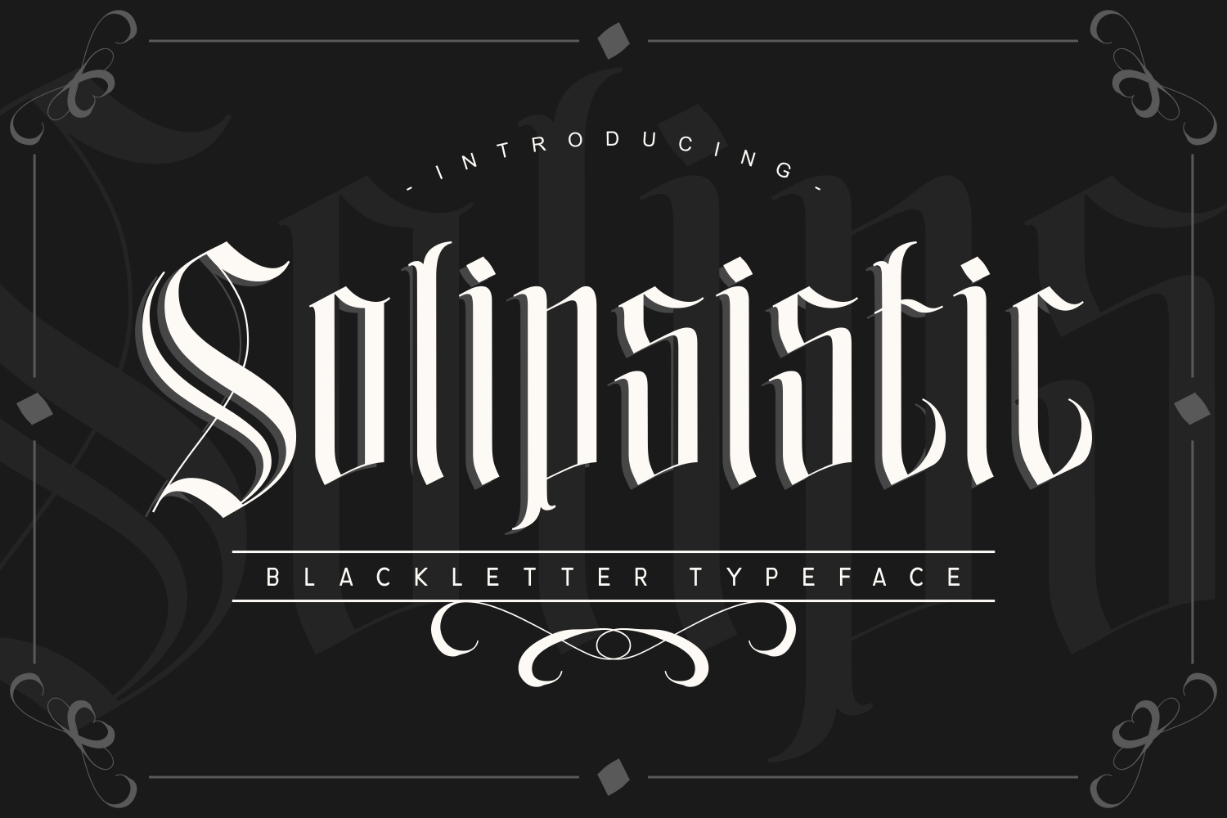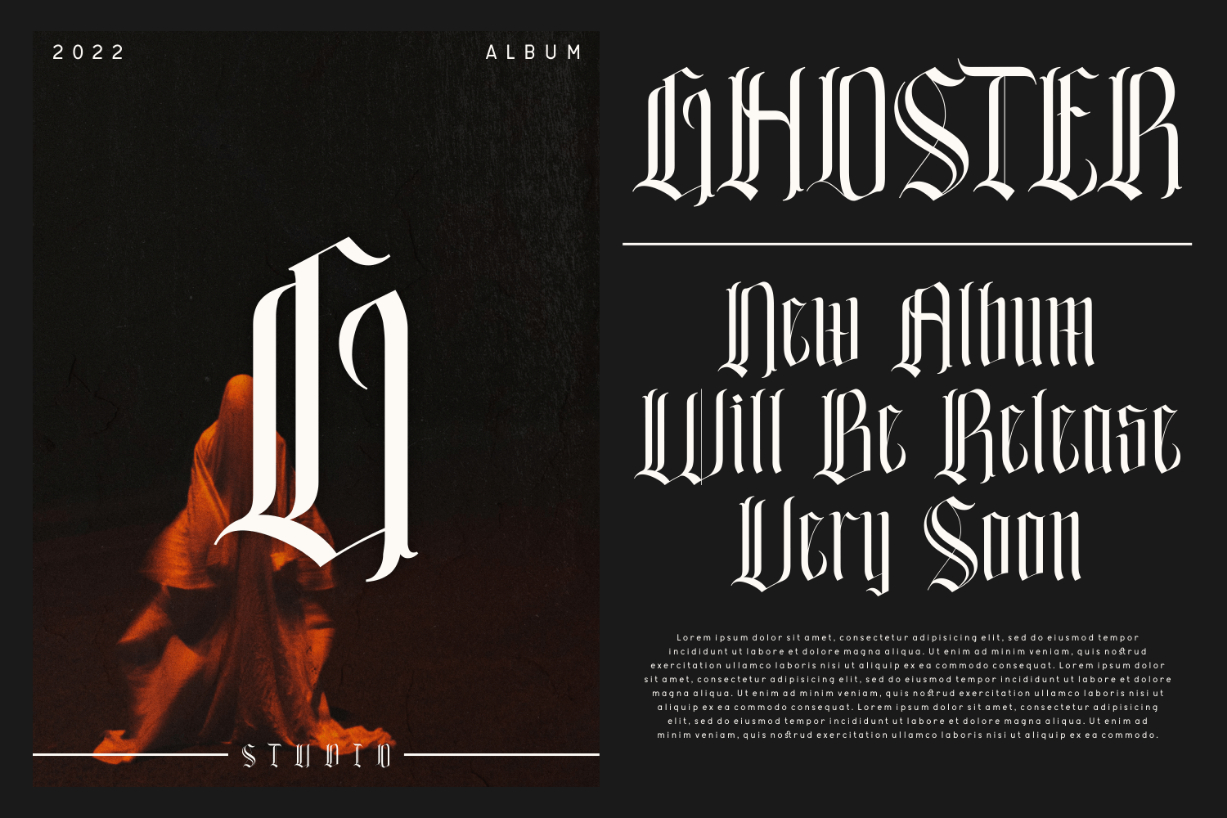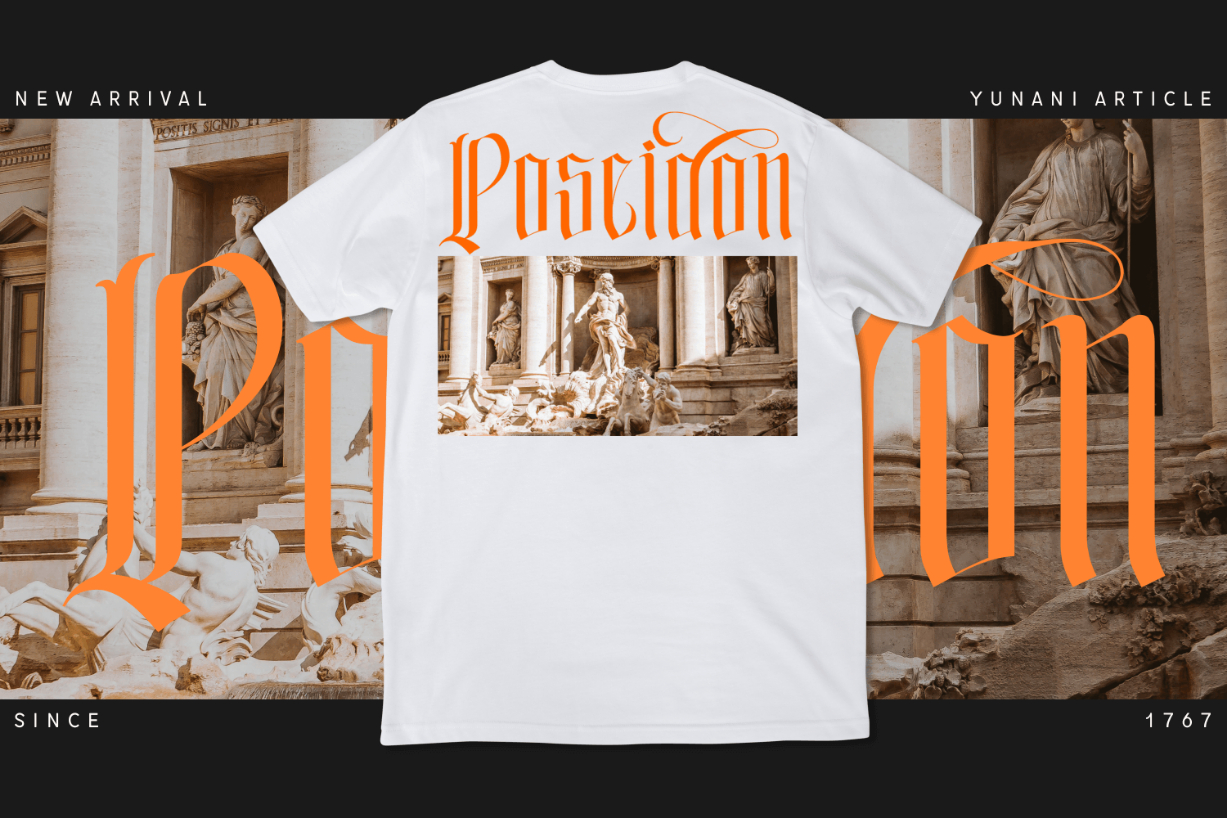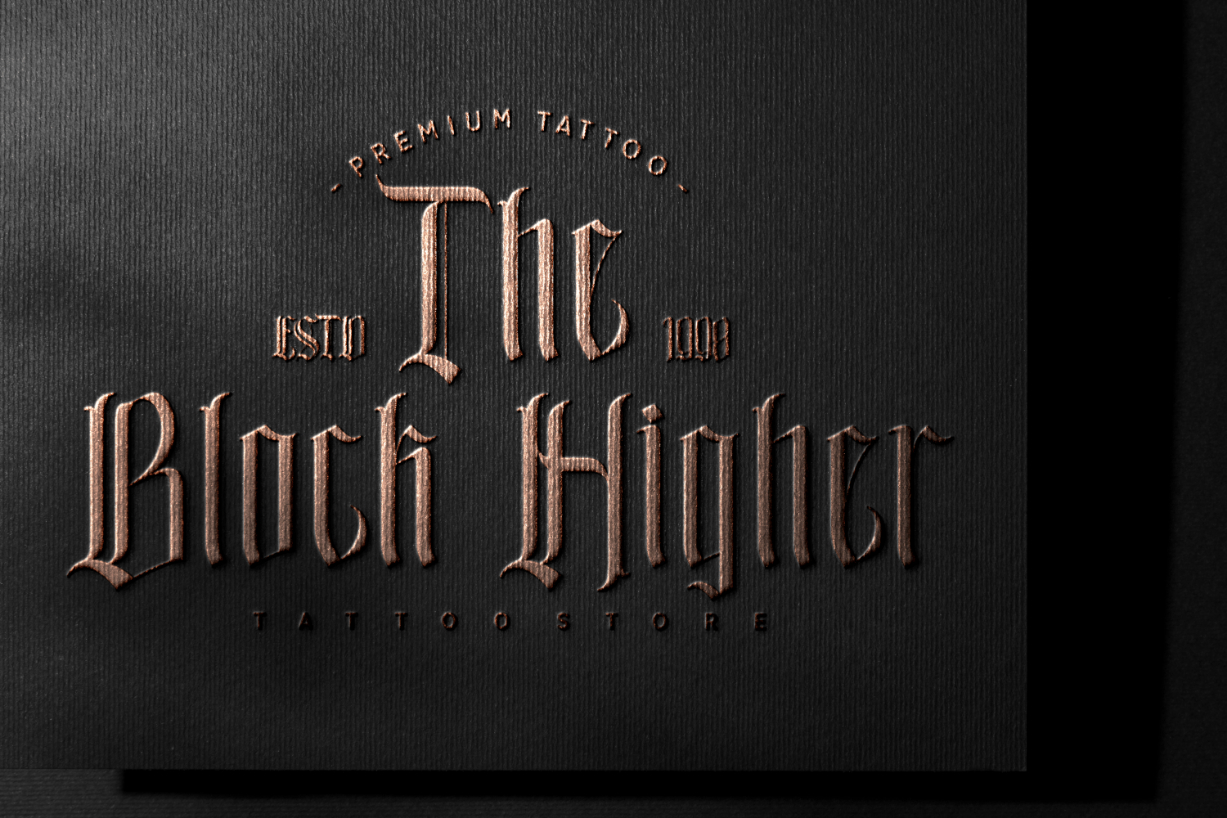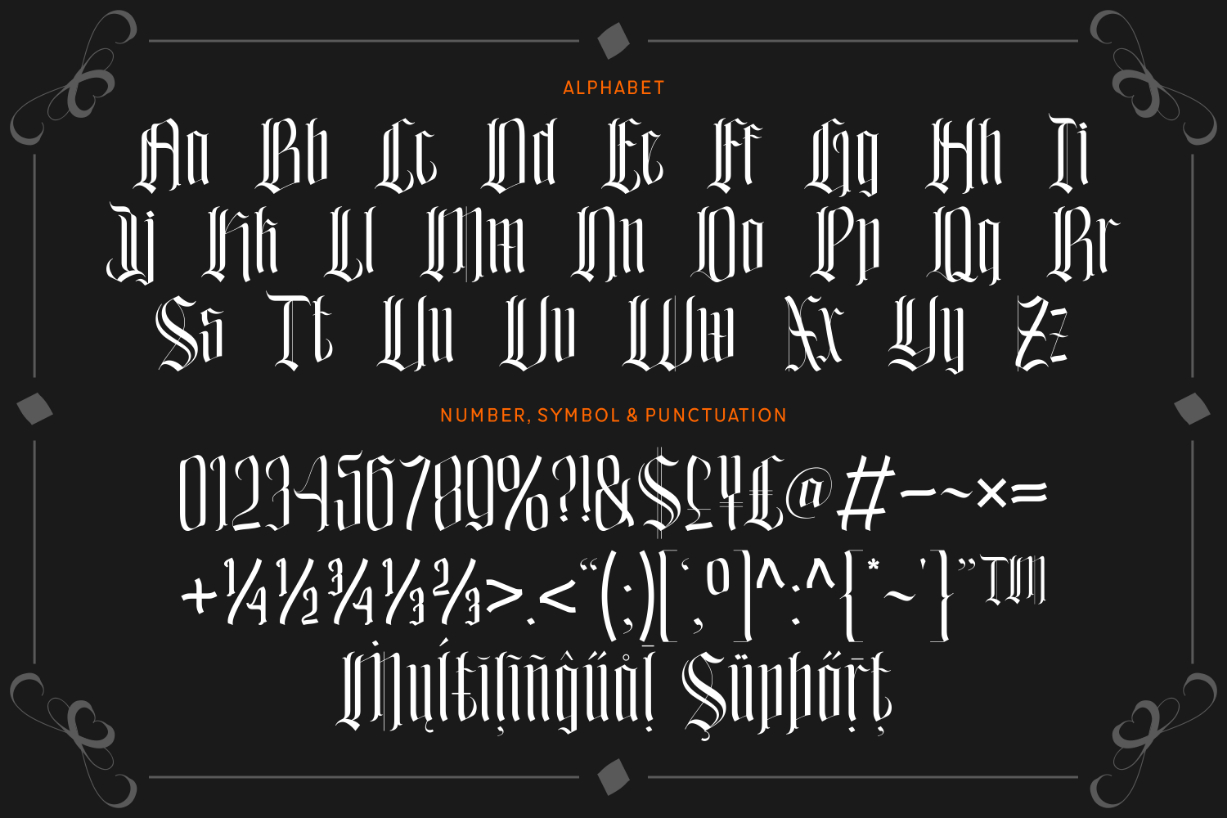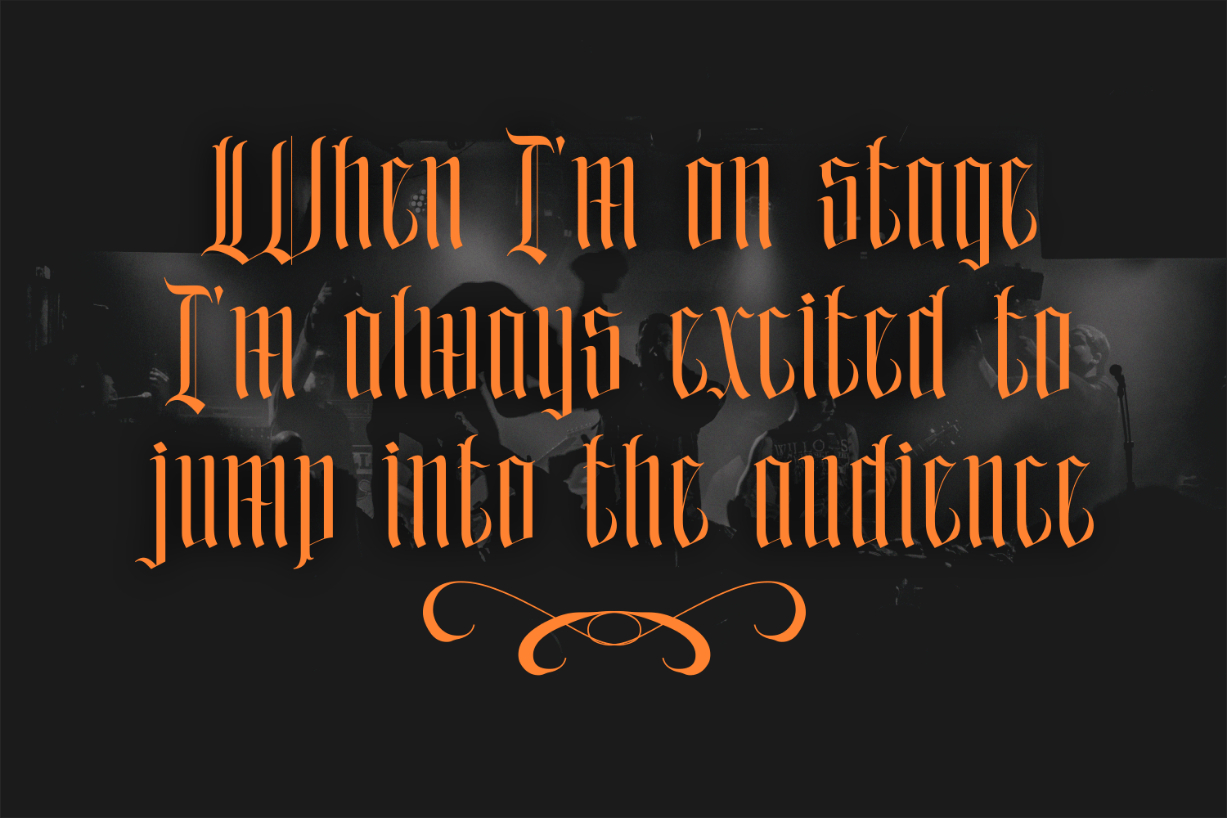
Solipsistic Font
About Solipsistic Font
Solipsistic is a splendid blackletter font that will impress with its stylish features. Use it for product packaging, branding, or other projects that need bold and daring typography!